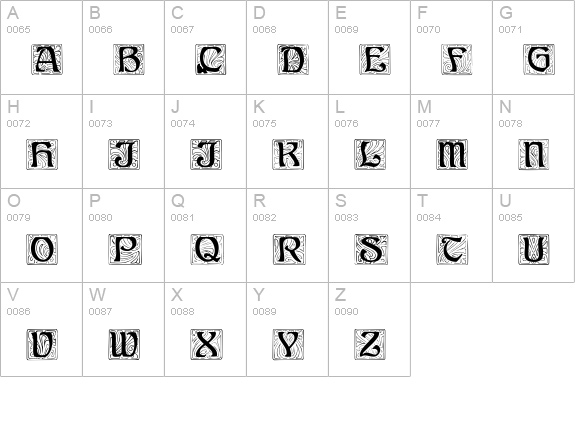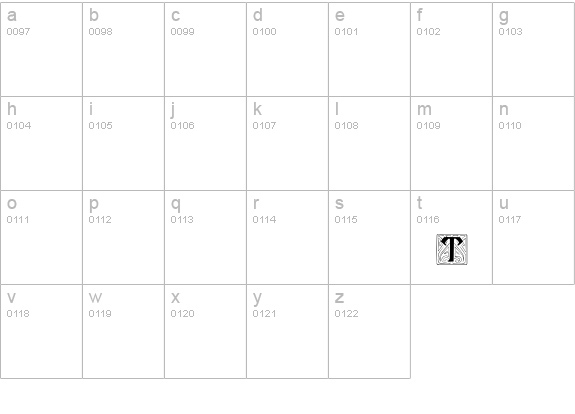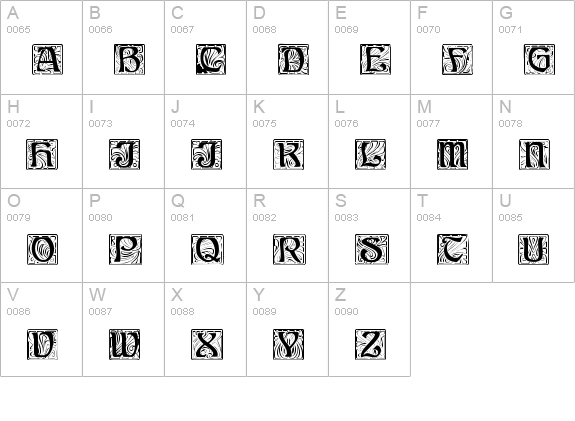
Ann-Stone Font Details
Ann-Stone is a beautifully crafted font that exudes elegance and sophistication. Its delicate curves and unique letterforms make it perfect for adding a touch of charm to any design project. The graceful strokes of this font give off a sense of timeless beauty that is sure to captivate your audience. What makes Ann-Stone even more appealing is that it is available for free download at FontsMarket.com. This means you can easily access this stunning font and use it in your projects without any cost. Whether you're designing a wedding invitation, branding materials, or simply looking to elevate your typography game, Ann-Stone is the perfect choice. Embrace the beauty and versatility of Ann-Stone font today and let your creativity shine with this exquisite typeface. Download it for free at FontsMarket.com and start adding a touch of sophistication to your designs.